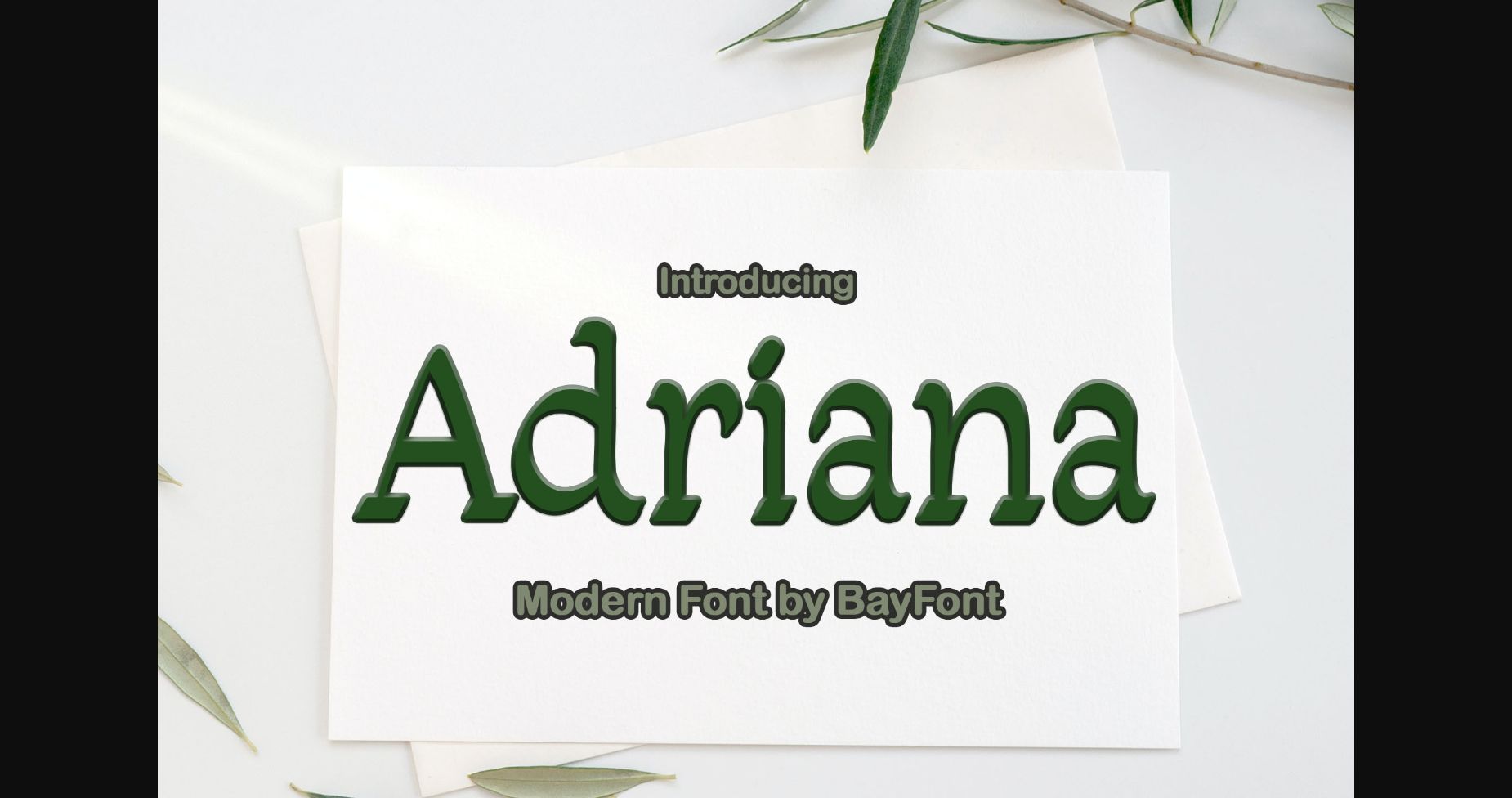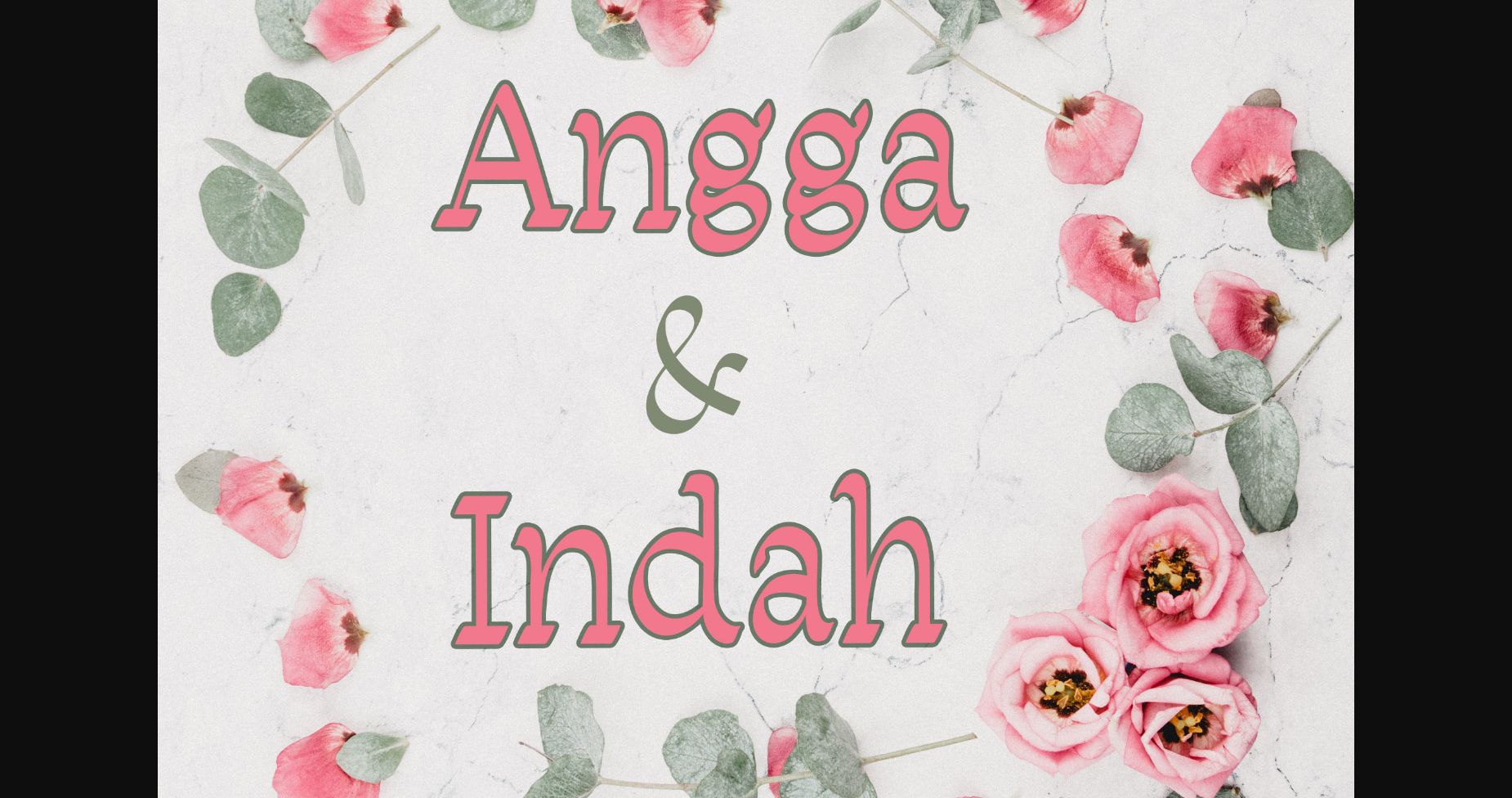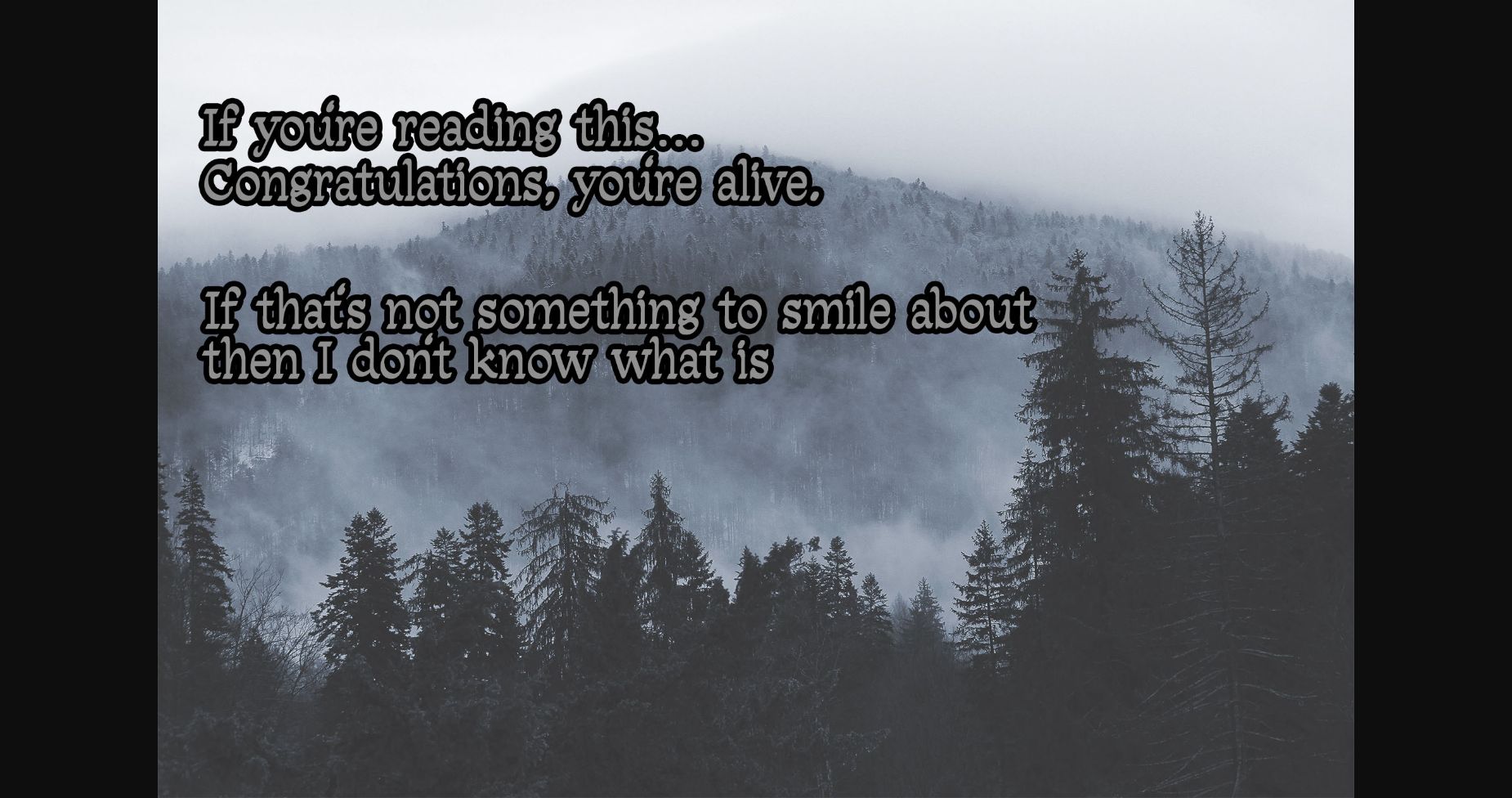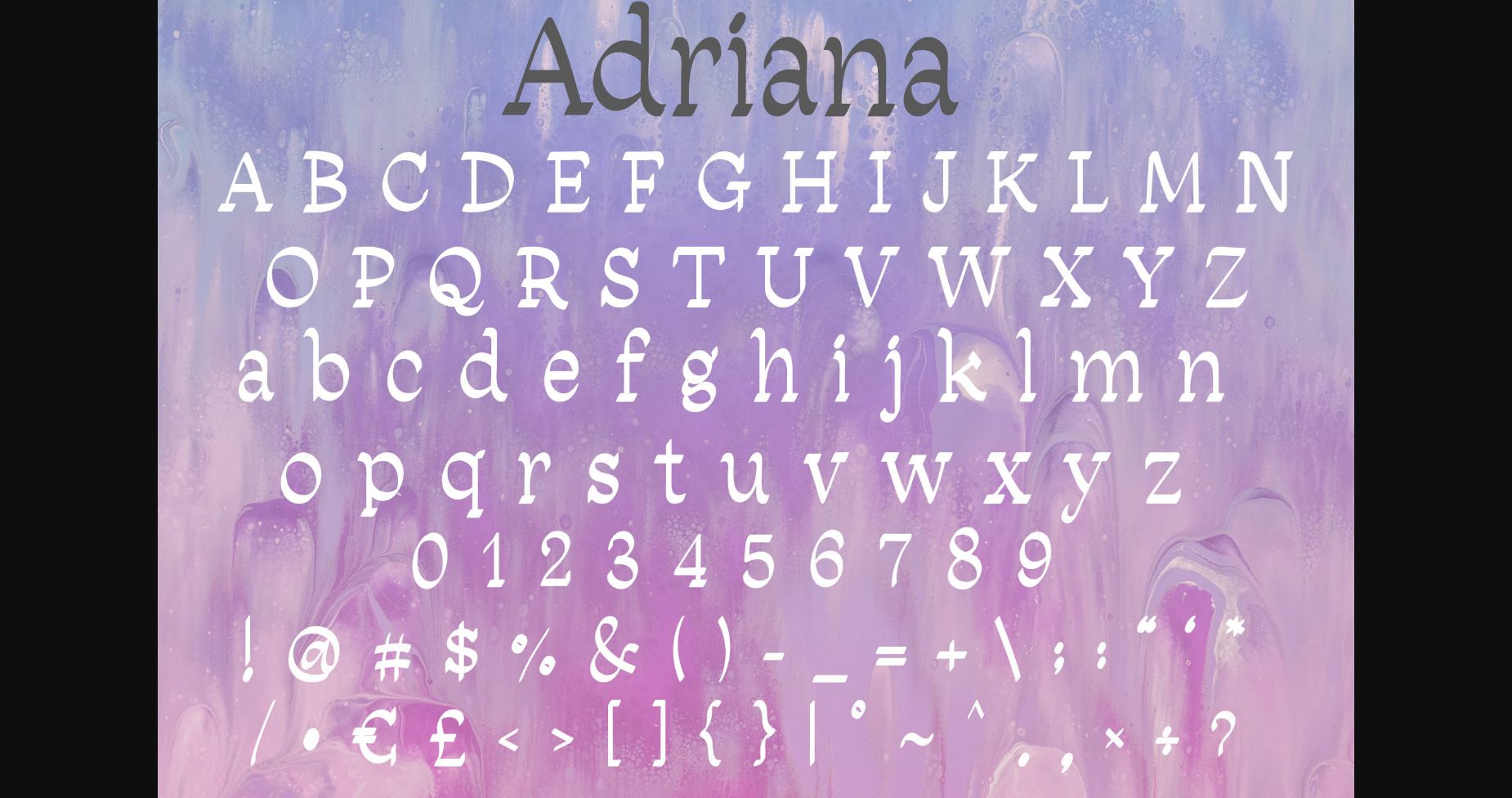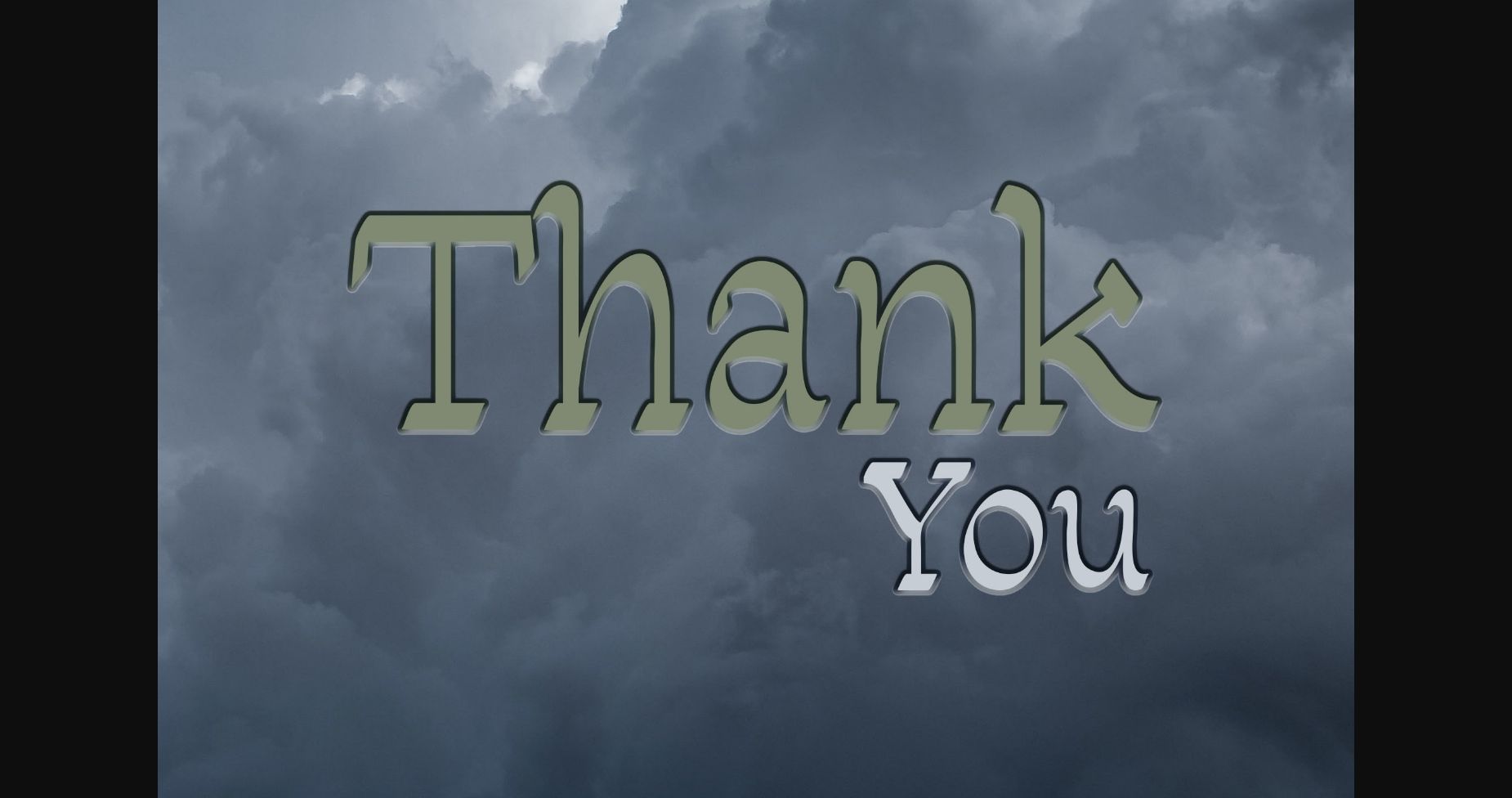
HomeSans Serif FontsAdriana Font Sans Serif Fonts Adriana Font FacebookXPinterestWhatsApp 1 of 7 ... Adriana Font Poster 2... Adriana Font Poster 3... Adriana Font Poster 4... Adriana Font Poster 5... Adriana Font Poster 6... Adriana Font Poster 7... About Adriana Font Adriana is a distinct and authentic slab serif font. It is the best choice for creating eye catching logos, branding and quotes. Every letter has a unique and beautiful touch, which will make your design come alive! DOWNLOAD NOW People also explored Lemqonse Font Karisma Font Candra Winata Font Beauty of Roses Font Night Wonder Font Samantha Font Rolling Bones Font Camelia Font Resize Font 377 0 TagsAdrianaAdriana Font Previous articleSlender Light FontNext articleWonderfull Obelia Font LEAVE A REPLY Cancel reply Comment: Please enter your comment! Name:* Please enter your name here Email:* You have entered an incorrect email address! Please enter your email address here Website: Save my name, email, and website in this browser for the next time I comment. Personal Use Free Jurnal Personal Use Free Read more about this font Archeology Personal Use Free Read more about this font Party Pooper Personal Use Free Read more about this font Rakesly Personal Use Free Read more about this font BLOG Using Fonts in Digital Marketing: Tips to Strengthen Your Brand Identity In the realm of digital marketing, every visual element plays a crucial role in shaping a brand's identity, and fonts are no exception. The... Free vs Paid Fonts: Why Investing in Premium Fonts Is Worth It Fonts That Capture the Spirit of New York City Free Fonts Risk: Why Free Fonts Can Be Dangerous for Designers